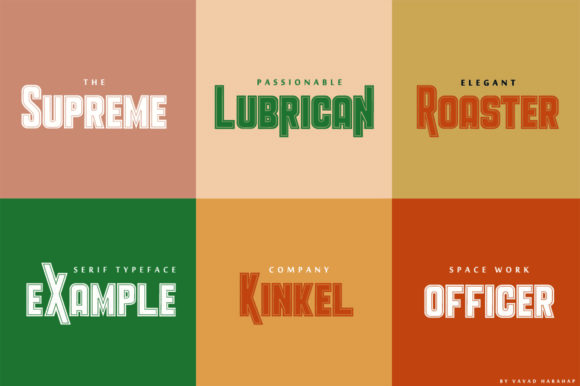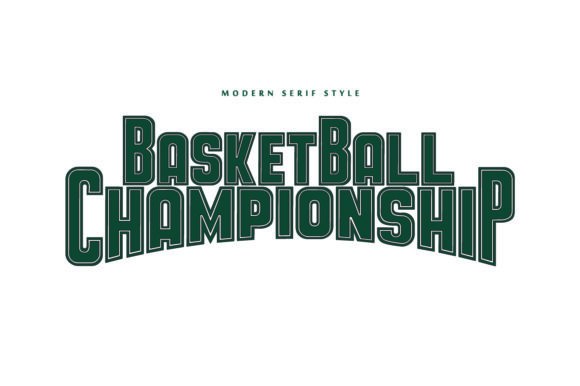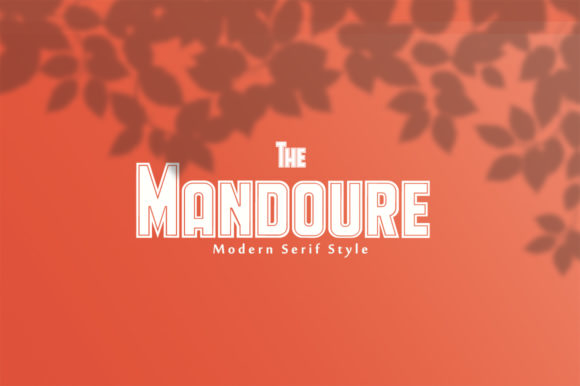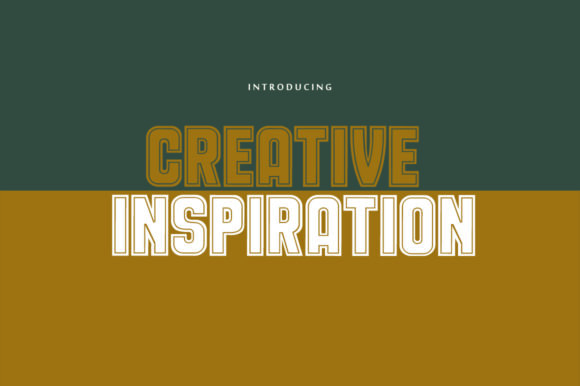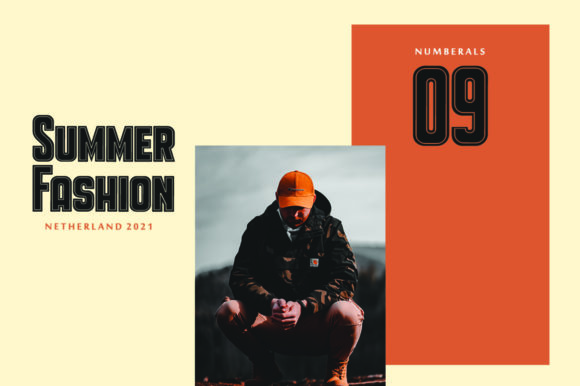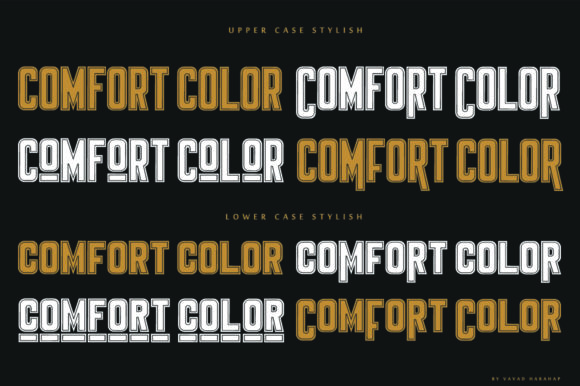
Introduction to Montier Black Font
As a designer, there’s nothing quite like the thrill of bringing a creative project to life. You’ve poured your heart and soul into every detail, from the color palette to the typography. But sometimes, it’s the smallest element that can make all the difference. For me, that element was the Montier Black Font – a daring and all-around display font that adds a touch of rugged sophistication to any design.
With its chunky lettered design, the Montier Black Font is a game-changer for designers looking to elevate their sports-related projects. Imagine a sleek sports logo or a bold headline that demands attention – the Montier Black Font is the perfect design resource to bring your vision to life.
Key Features of Montier Black Font
- Unique, bold design with a modern aesthetic
Honest Review: Montier Black Font
I recently stumbled upon the Montier Black Font and I must say, it’s been a game-changer for my design projects. As a designer, I’m always on the lookout for high-quality design resources that can elevate my work. The Montier Black Font is a great find, offering a sleek and modern aesthetic that’s perfect for creative projects.
What works well with this font is its versatility. It’s available for free download, which is a huge plus for designers who are working on a budget. The font is also super easy to use, with a transparent background that makes it seamless to integrate into any design. The Montier Black Font is perfect for headings, titles, and even body text, making it a great all-around font for any design project.
- Suitable for headings, titles, and body text
⚠️ One limitation of the Montier Black Font is that it may not be suitable for designs that require a lot of customizability. The font is quite bold and modern, so it may not be the best fit for more traditional or vintage-inspired designs.
Overall, I’m thoroughly impressed with the Montier Black Font. It’s a great addition to any designer’s toolkit, and I’d definitely recommend it to anyone looking for a high-quality font for their creative projects. ✨
The Montier Black Font is ideal for creative projects that require a modern and sophisticated look. Some common use cases include:
- Business presentations and reports
- Marketing materials and brochures
- Website design and development
To get the most out of the Montier Black Font, use it in combination with other design elements to create a high-quality design. You can also experiment with different font sizes, colors, and styles to match your design needs. Additionally, consider using the font with a transparent background to create a clean and modern look.
Alternatives to Montier Black Font
Abril Fatface
Abril Fatface is a high-quality, elegant script font perfect for adding a touch of sophistication to your creative project. It’s ideal for use on invitations, wedding cards, and other formal design elements. Abril Fatface is a free download, making it a valuable resource for designers looking to add some flair to their work without breaking the bank. When compared to Montier Black Font, Abril Fatface has a more refined, cursive feel that’s perfect for adding a sense of luxury to your design.